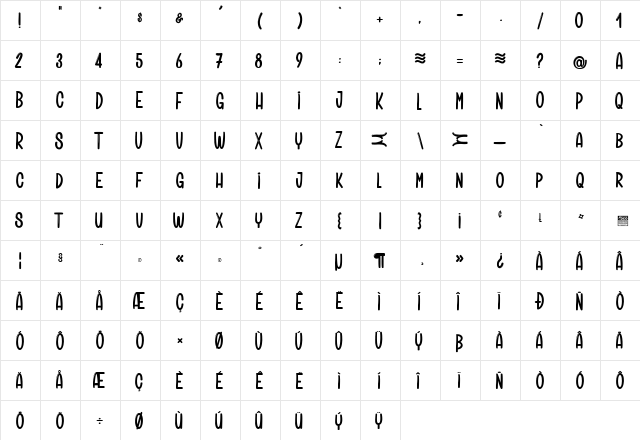
Artisanalerie 1_PersonalUseOnly Regular
| Foundry | Gregory Medina 餣odesign |
| Designer | Gregory Medina 餣odesign |
Design Context for Artisanalerie 1_PersonalUseOnly Typeface
Artisanalerie 1_PersonalUseOnly takes a measured approach to typography — its balanced proportions and neutral character make it a reliable workhorse for both digital and print work.